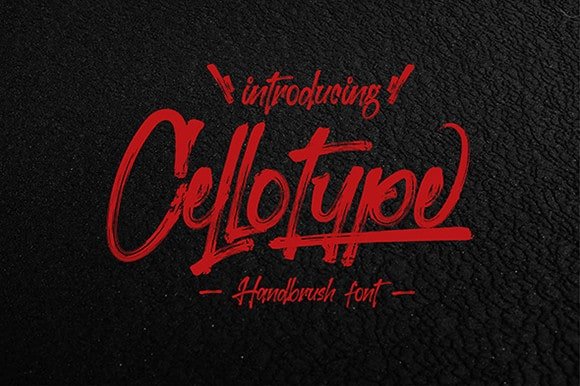
Cellotype Brush Script Font
Cellotype Brush Script Font is a cool brush typeface. Made for any professional project branding. Every letter has a unique and beautiful touch. A handwritten script brush font with 2 styles, regular and swashes.
Cellotype is suitable for branding, logotype, apparel, T-shirt, Hoodie, product packaging, quotes, flyer, poster, advertising, etc. This font is free for PERSONAL USE. Link to purchase full version and commercial license : HERE